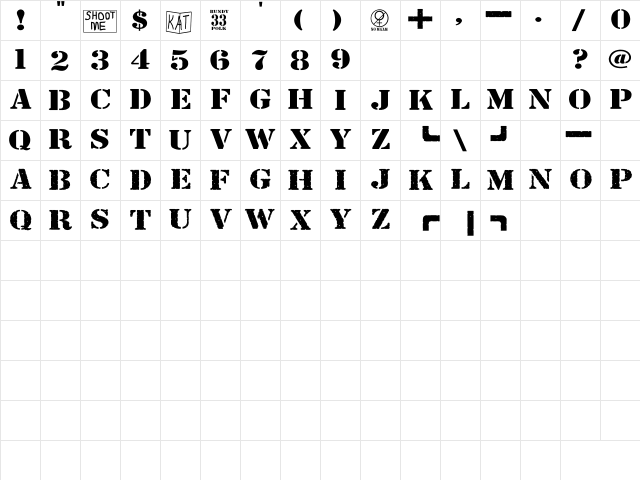
Bundy Yellow Solid
Design Context for Bundy Yellow Typeface
Bundy Yellow is a composed and adaptable typeface that performs quietly and consistently across a wide range of design contexts.